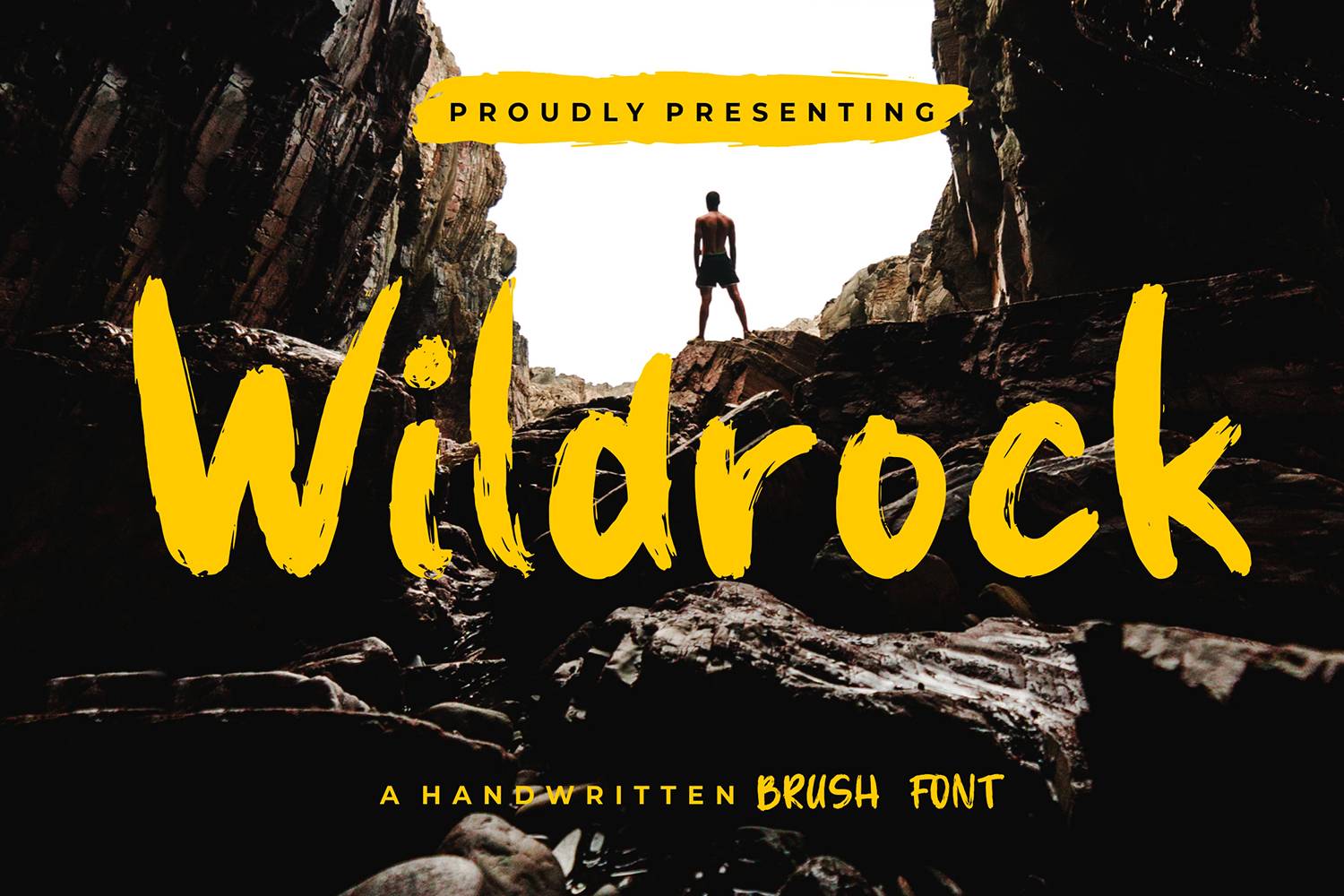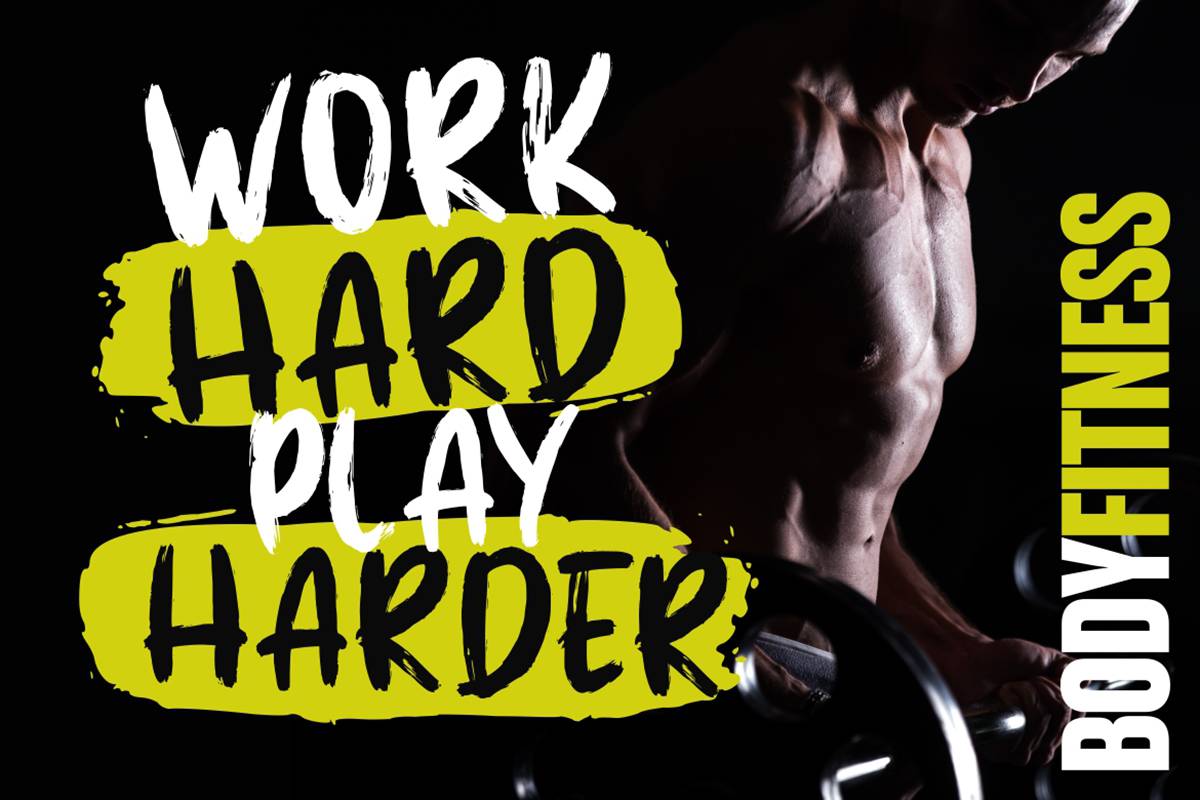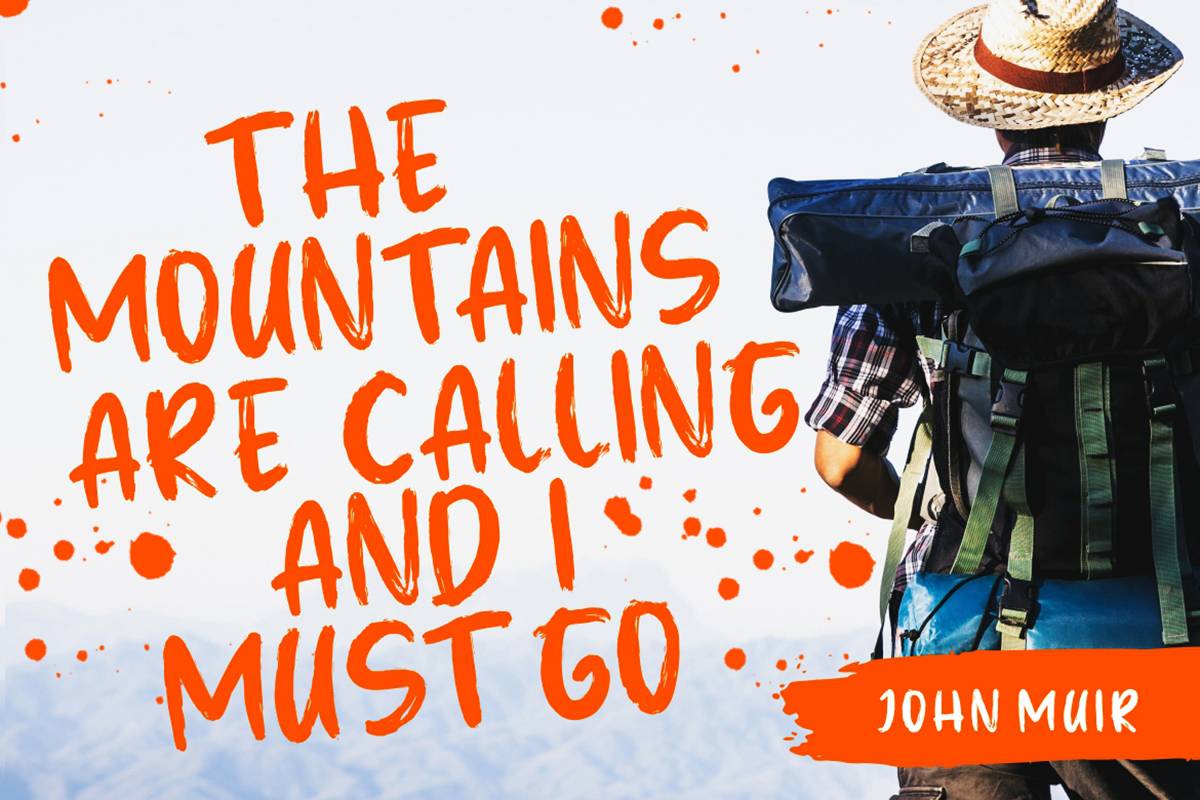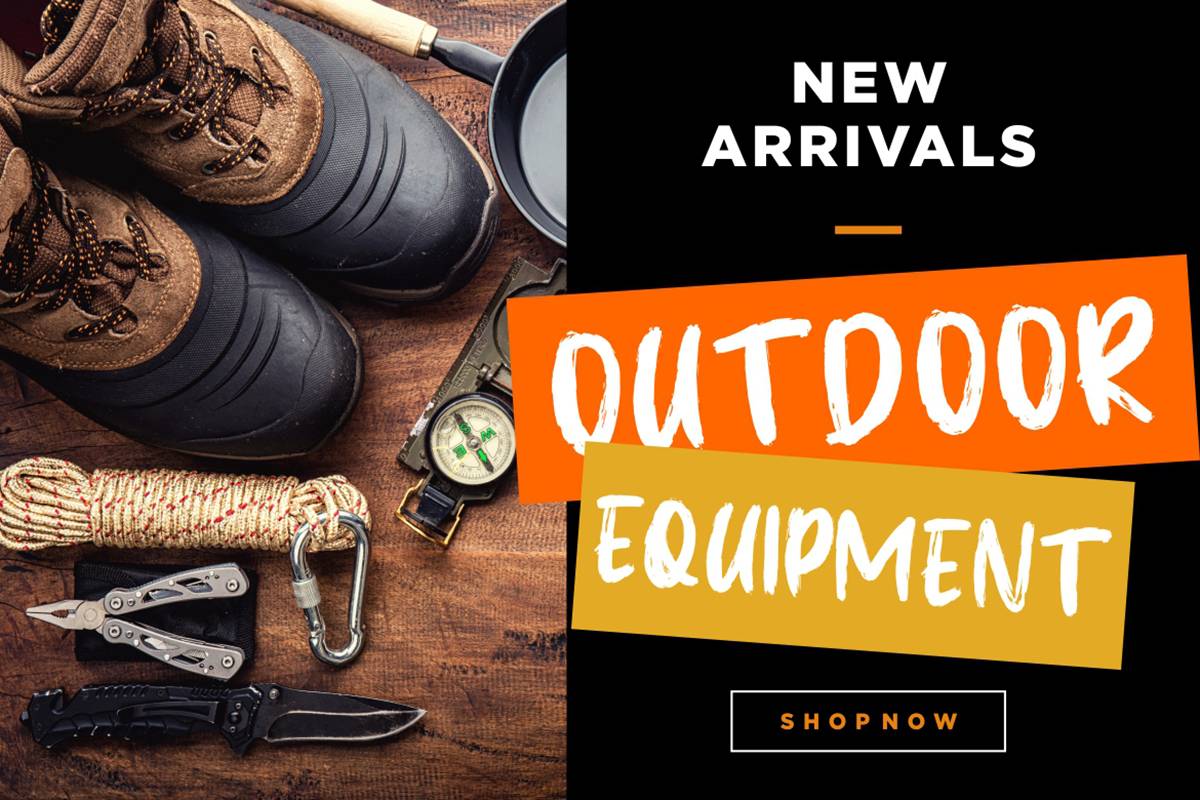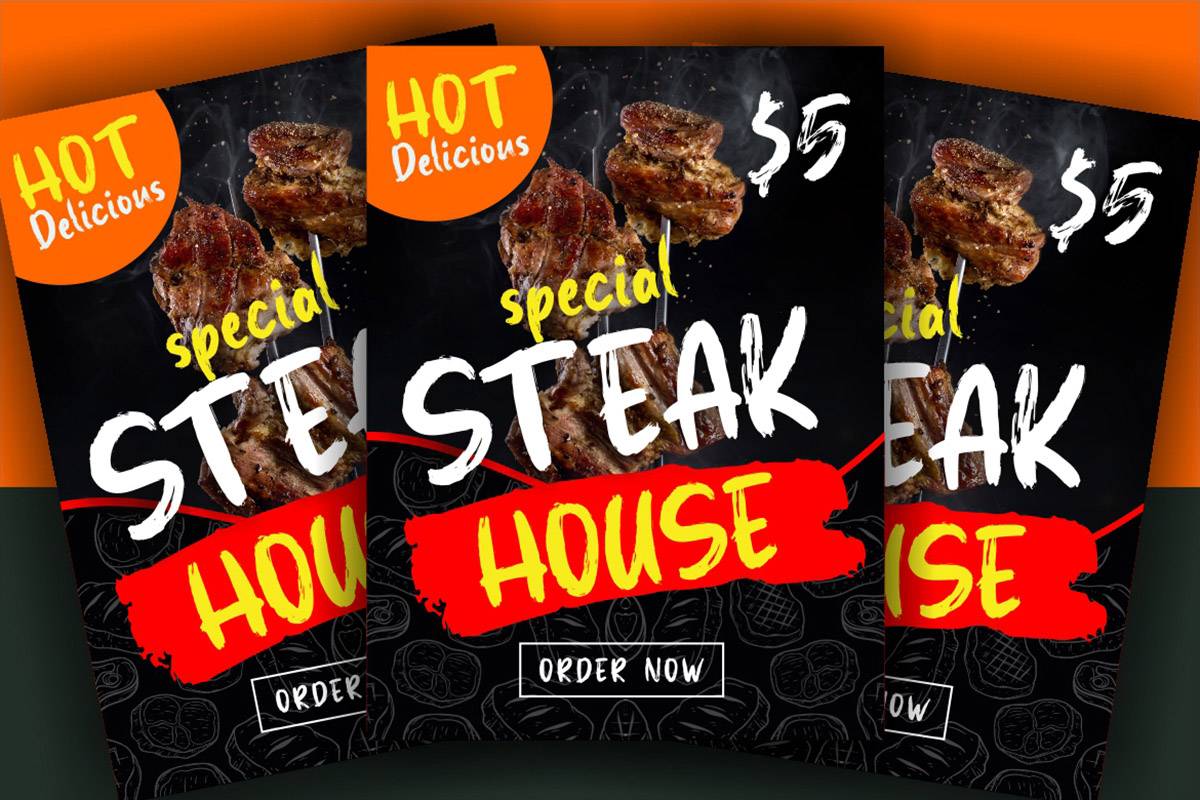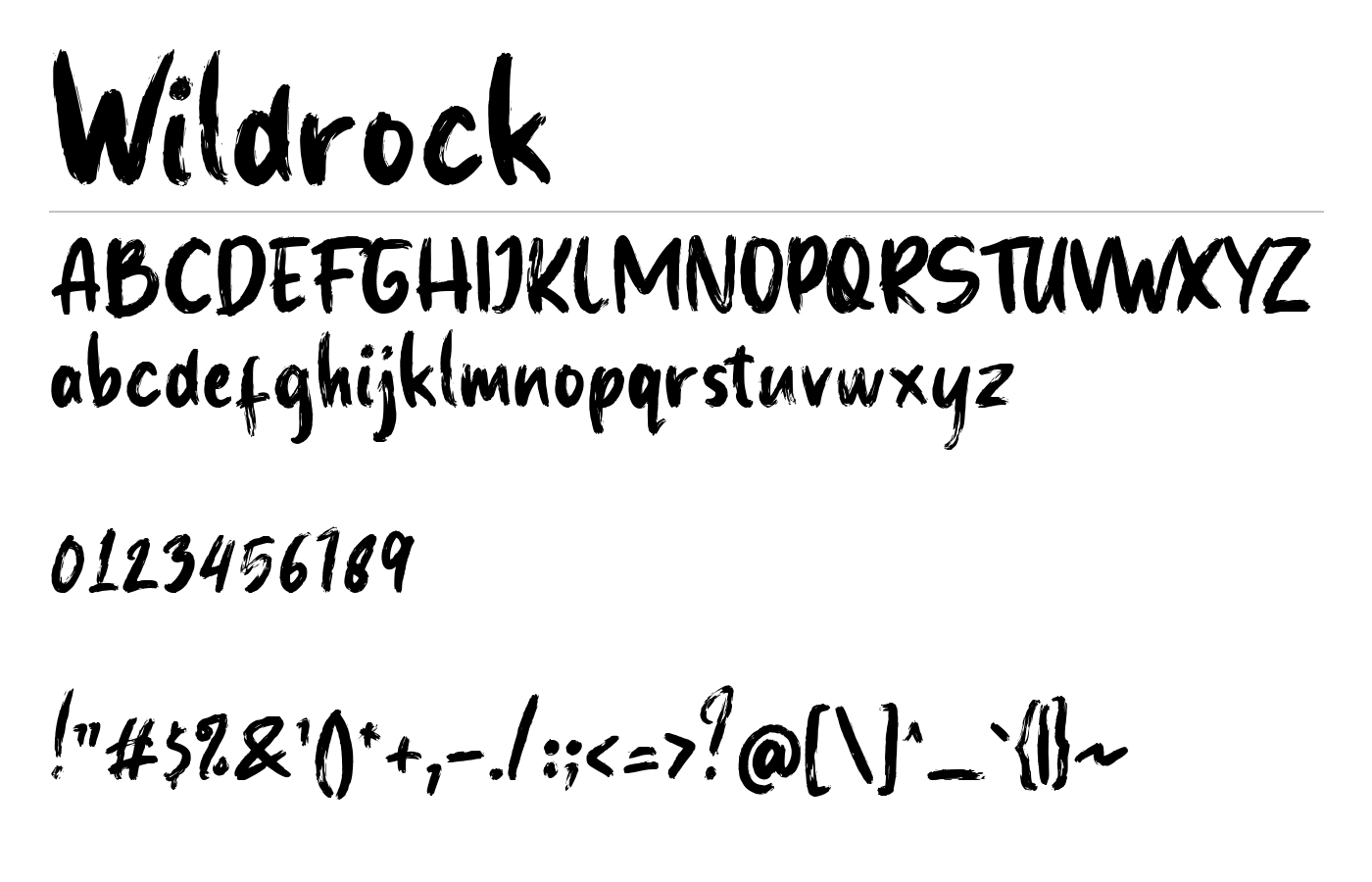
Wildrock is a bold, hand-brushed script font with a lively and organic feel, characterized by uneven strokes and a textured, painterly style. Its playful yet strong letterforms make it ideal for creative, casual, and energetic brand identities, packaging, or headlines where a handcrafted, natural look is desired. This font brings personality and a dynamic touch to designs seeking to stand out with an authentic, artistic vibe.
Wildrock Font
About Wildrock Font